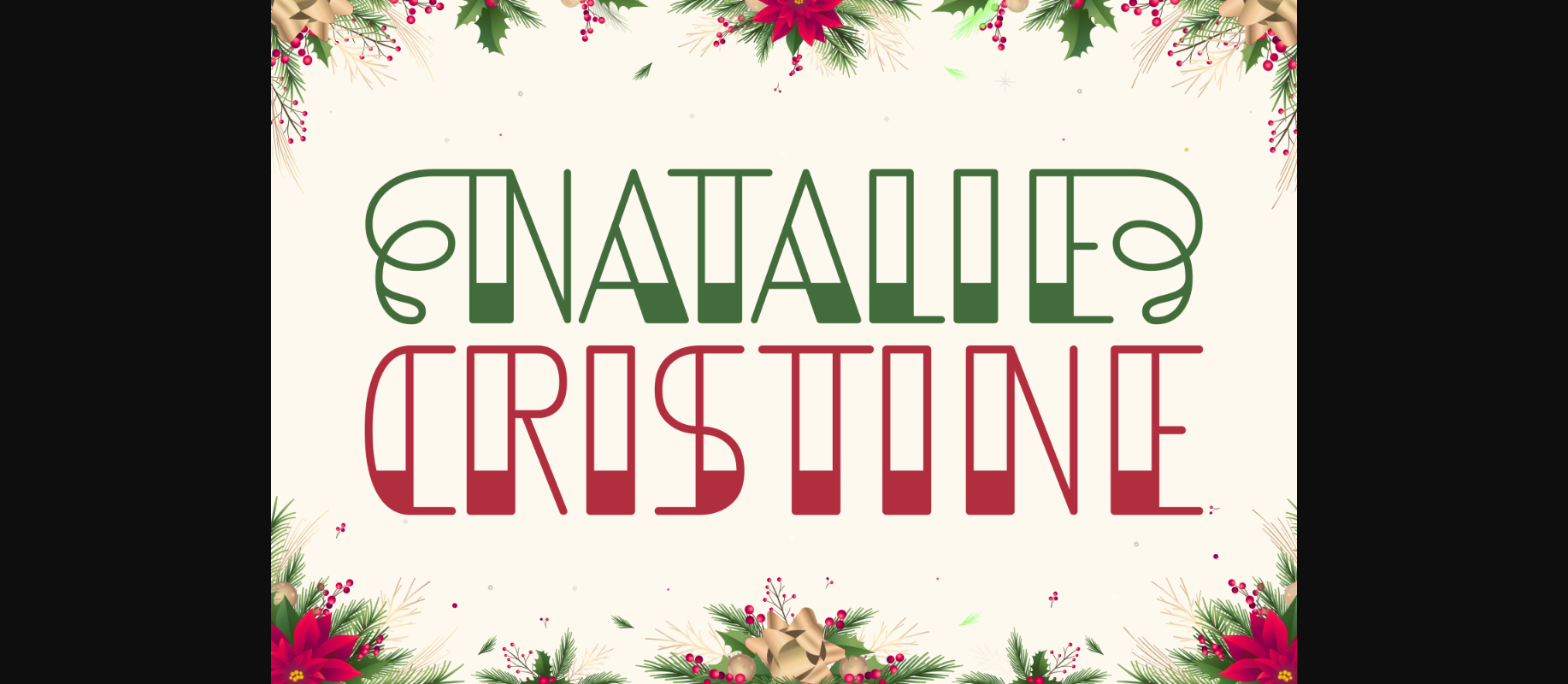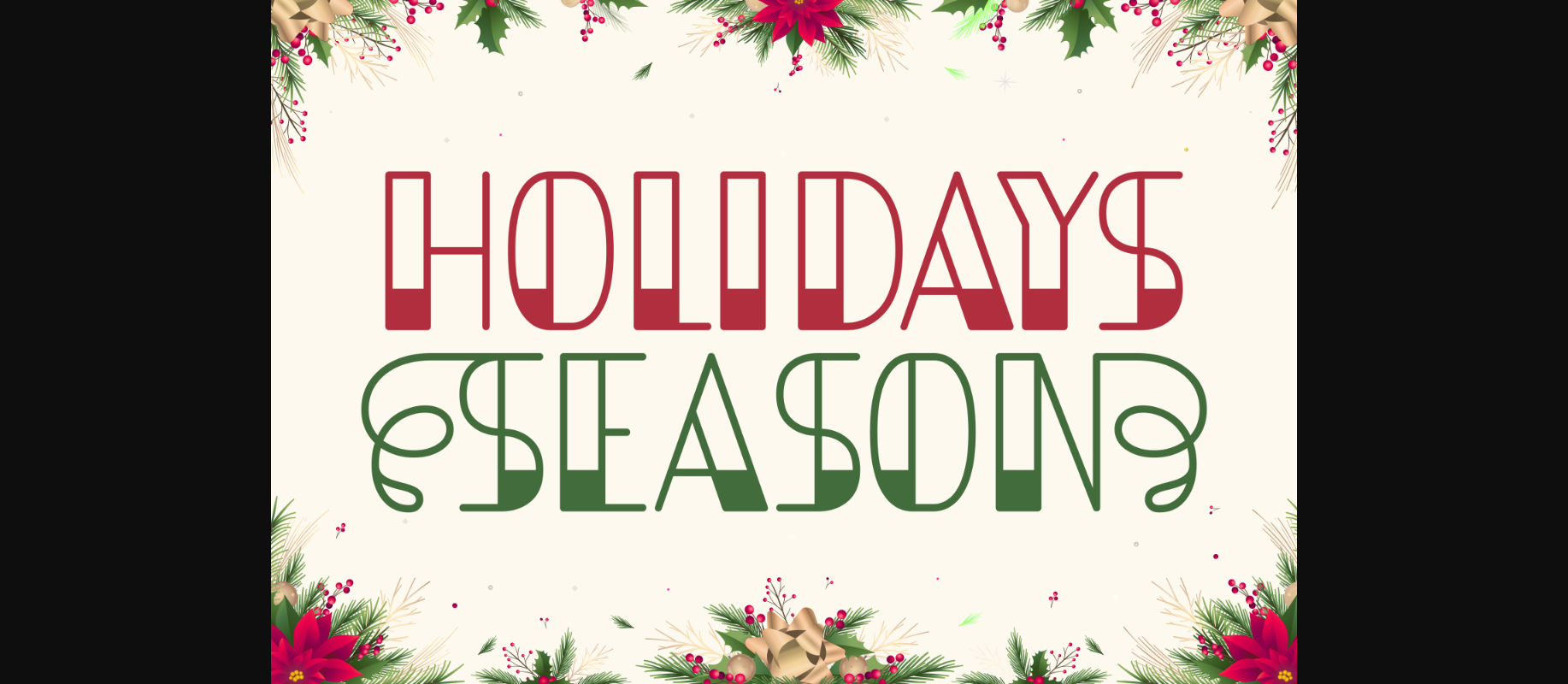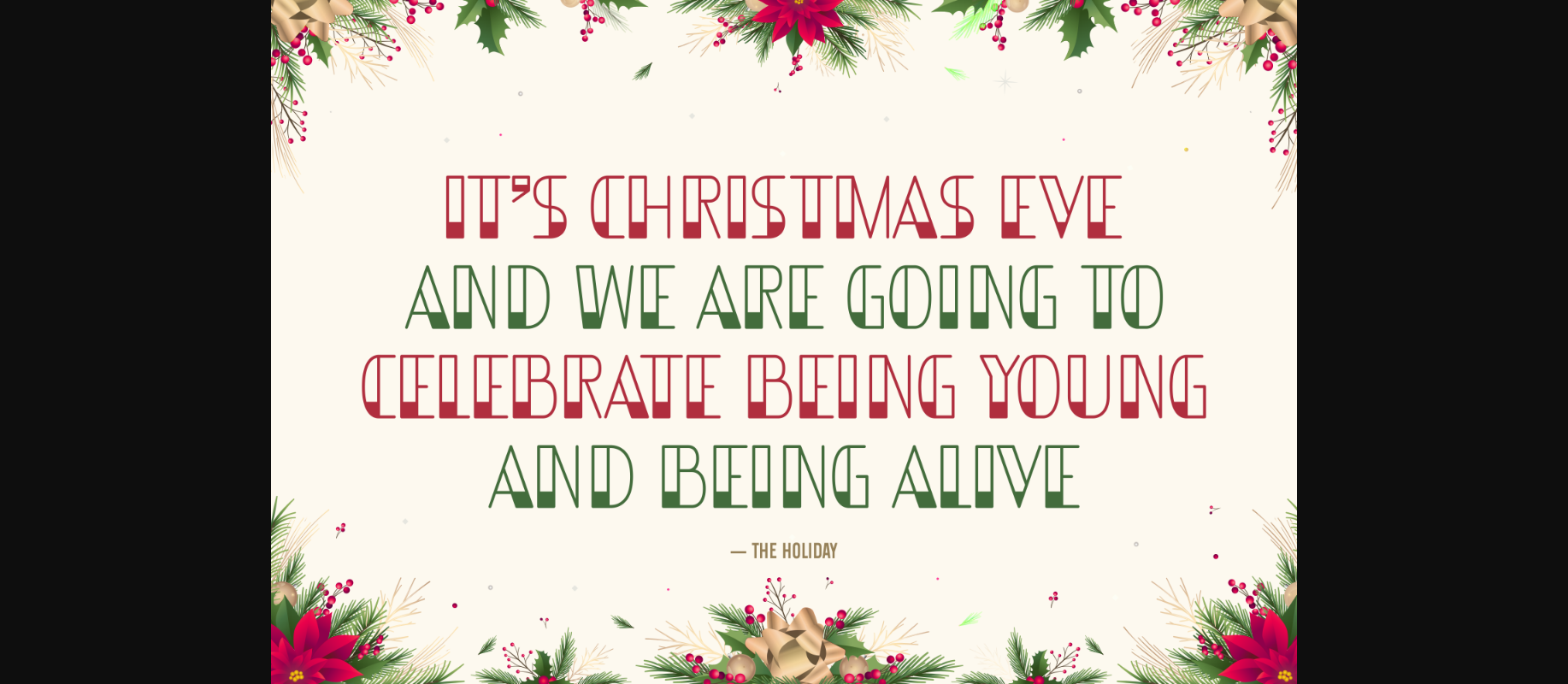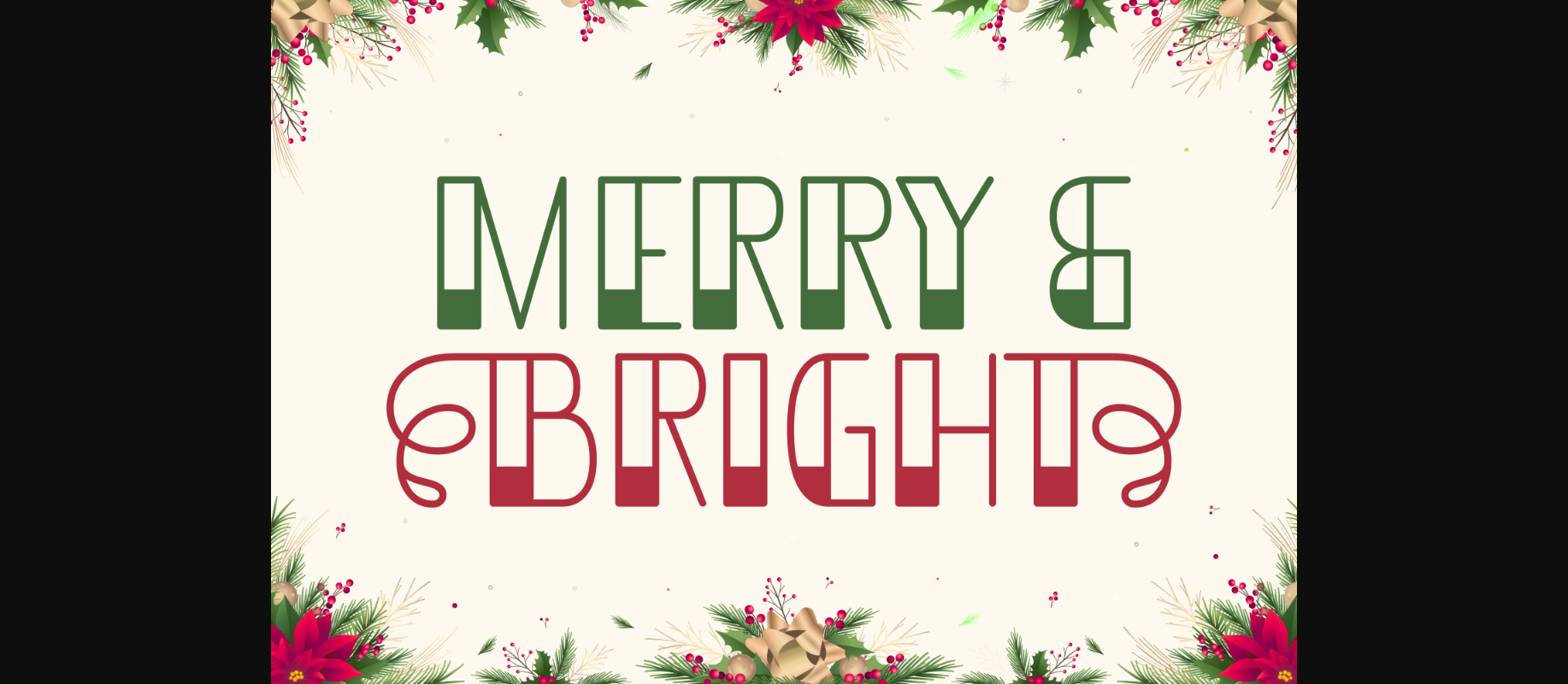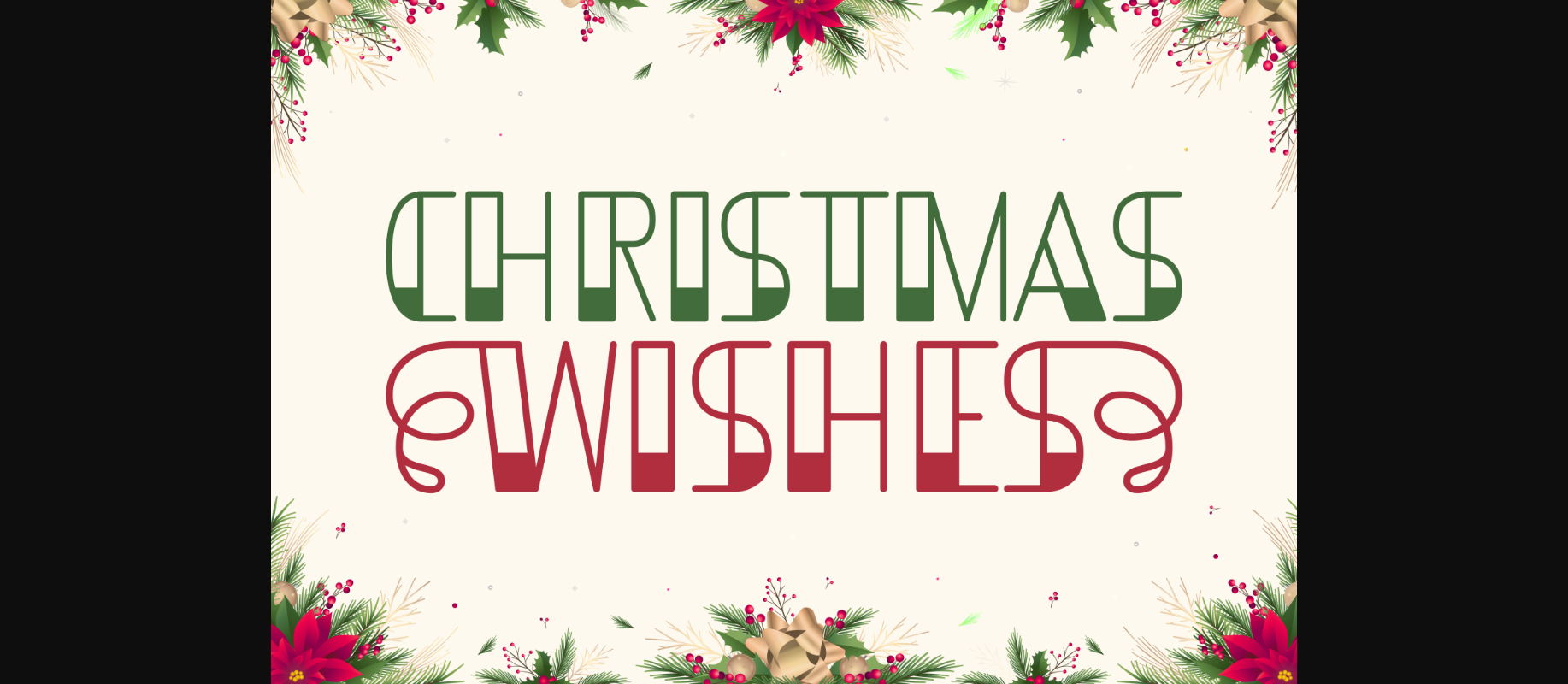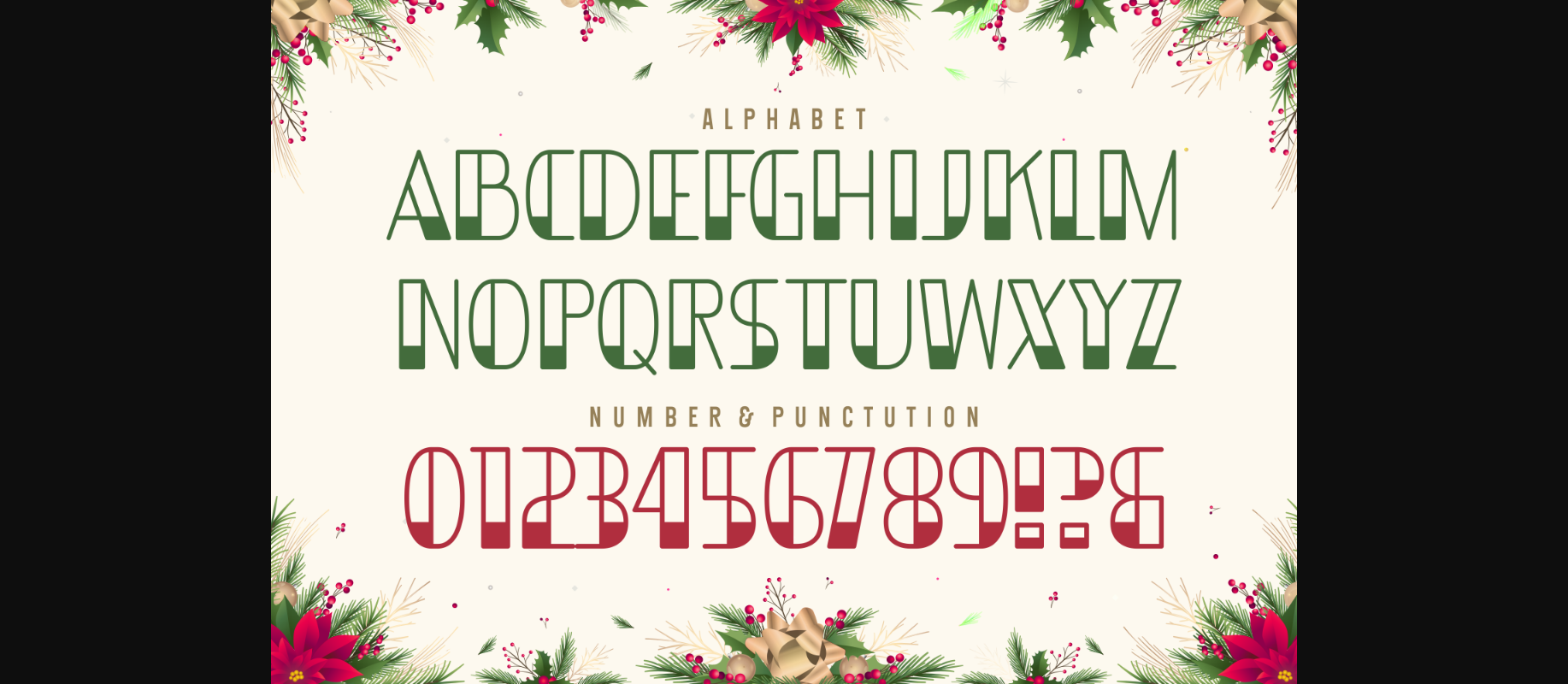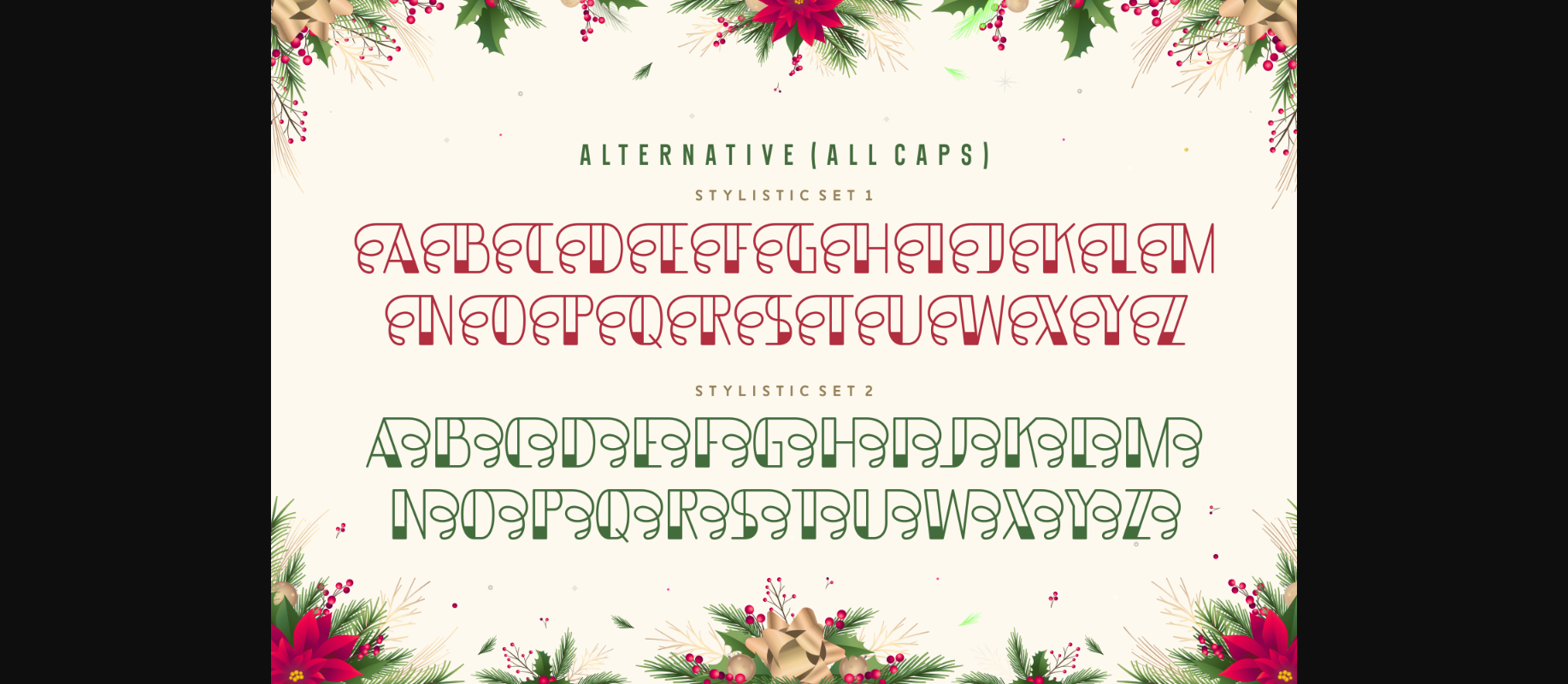
Natalie Cristine Font
About Natalie Cristine Font
Natalie Cristine is an organic and beautiful decorative font, featuring lovely ornaments. No matter the topic, this font will be an incredible asset to your fonts’ library, as it has the potential to elevate any creation.